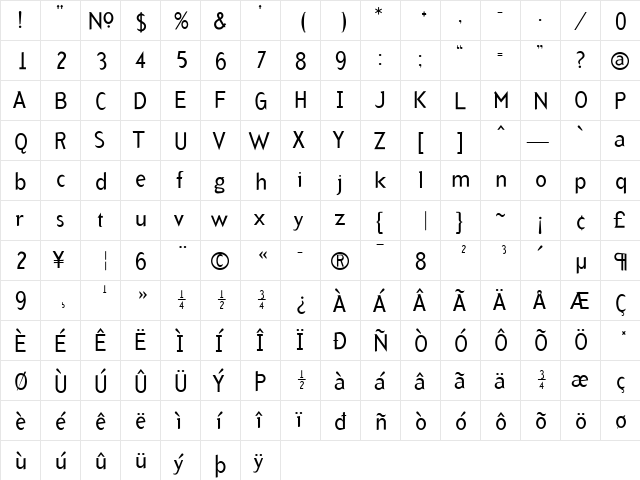
Arb Medium
| Foundry | Emigre Graphics, designed by Barry Deck |
Design Context for Arb Typeface
Arb offers clean, dependable letterforms without strong stylistic allegiance, making it a practical choice for designers who need flexibility.